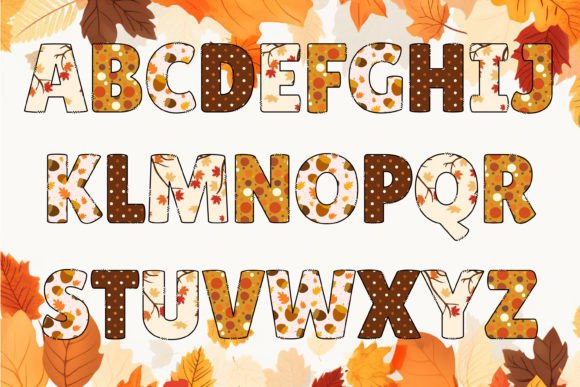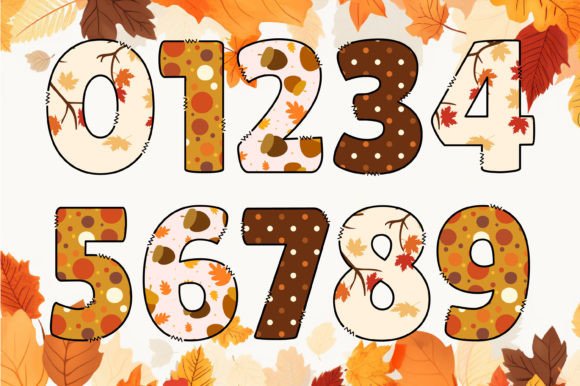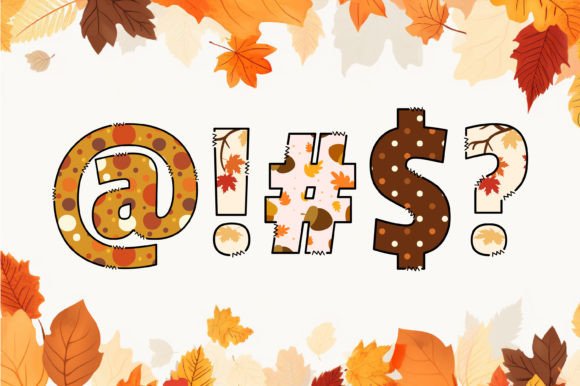
The Magic of Autumn Font: A Designer’s Delight
I’ll never forget the time I was working on a children’s book project, and my client asked me to create a custom font that would make the story come alive. I spent hours scouring the internet for the perfect font, but nothing seemed quite right. That’s when I stumbled upon Autumn Font, and it was love at first sight! ✨ The playful, whimsical letters seemed to dance on the page, and I knew I had found the perfect fit.
What I Love About Autumn Font
- ✅ Whimsical and playful design that’s perfect for children’s books, posters, and invitations
- ✨ Highly legible, even at small font sizes
- 🎨 Extensive range of glyphs and stylistic alternates to add visual interest
- 🌈 Support for multiple languages and Unicode characters
While Autumn Font is a stunning addition to any design project, there are a few quirks to keep in mind:
- 🤔 Some users have reported issues with kerning, particularly at larger font sizes
- ⚠️ Limited support for certain OpenType features, such as ligatures and swashes
The Story Behind Autumn Font
Autumn Font was designed by a team of creatives who wanted to create a font that would evoke the feeling of fall and all its magic. Inspired by the changing leaves, cozy sweaters, and warm cups of apple cider, they crafted a font that’s both playful and inviting. The result is a font that’s perfect for designs that need a touch of whimsy and fun.
| What is Autumn Font? | Autumn Font is a playful, whimsical font designed for use in a variety of creative projects, including children’s books, posters, invitations, and more. |
| Does Autumn Font support OpenType features? | Autumn Font supports some OpenType features, including glyphs and stylistic alternates, but has limited support for certain features like ligatures and swashes. |